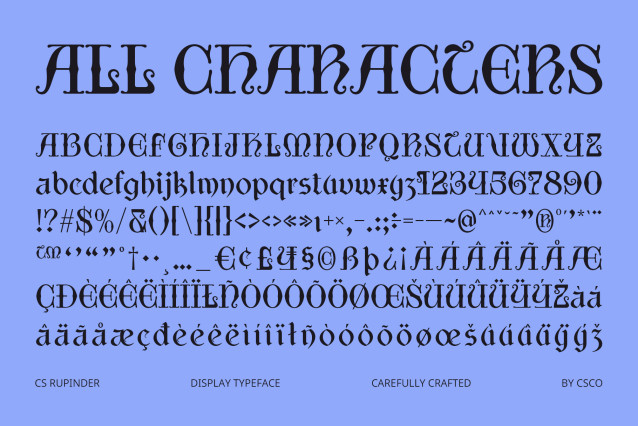
CS Rupinder Font
CS Rupinder Font is a gothic uncial display font featuring a distinctive blend of uncial and gothic design elements. Its curved letterforms are paired with sharp, dramatic strokes, creating a unique contrast that brings a sense of ancient, hand-crafted elegance.